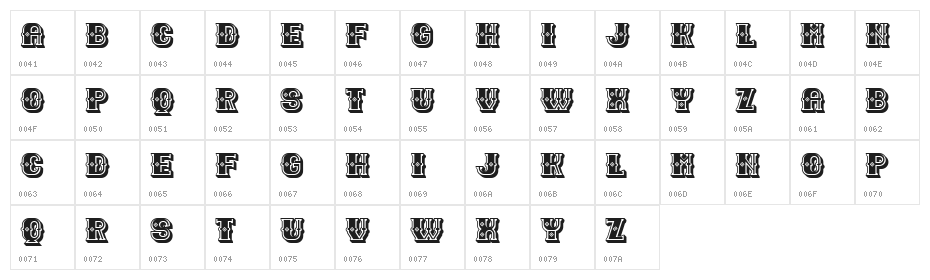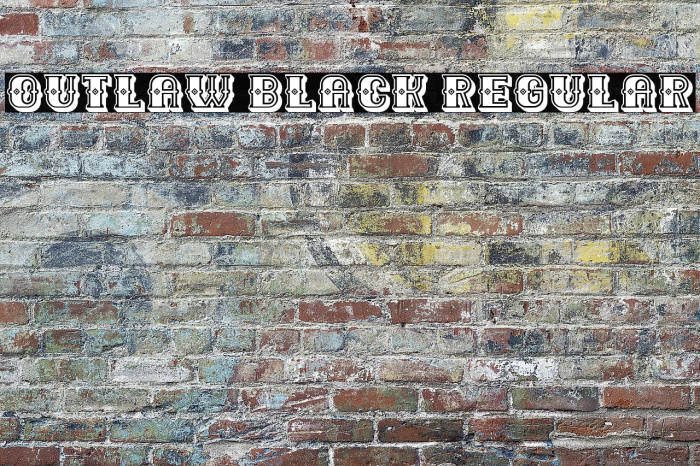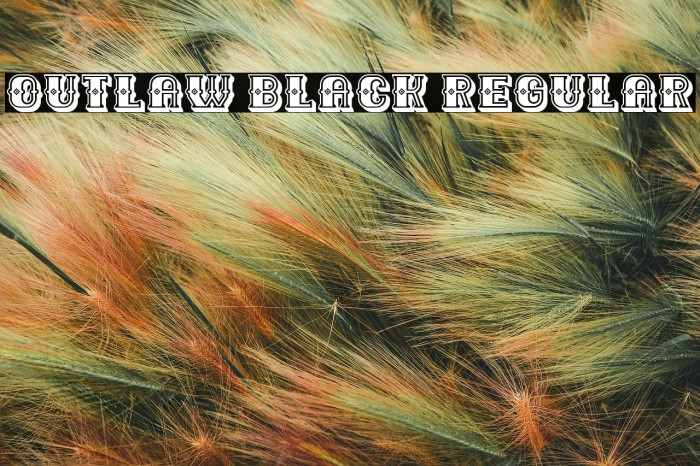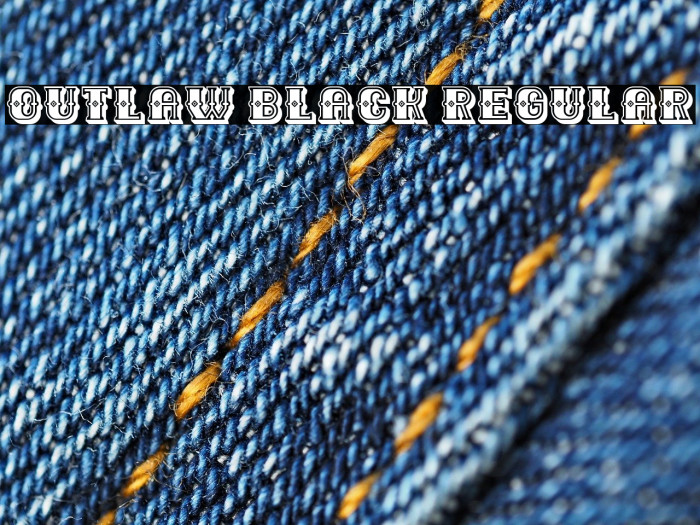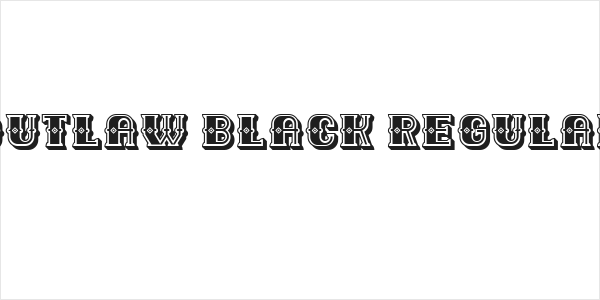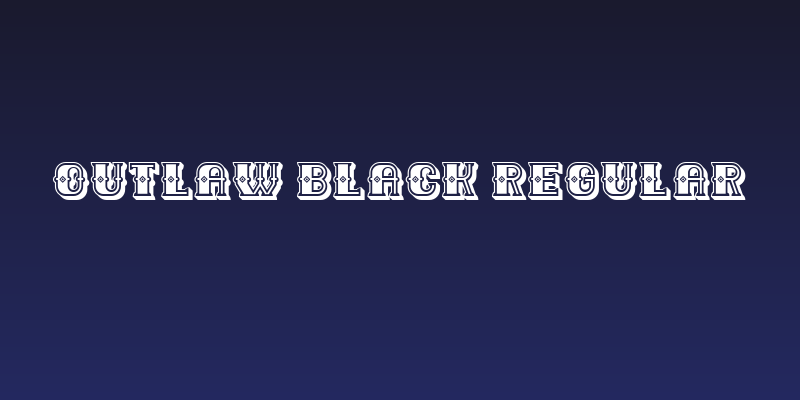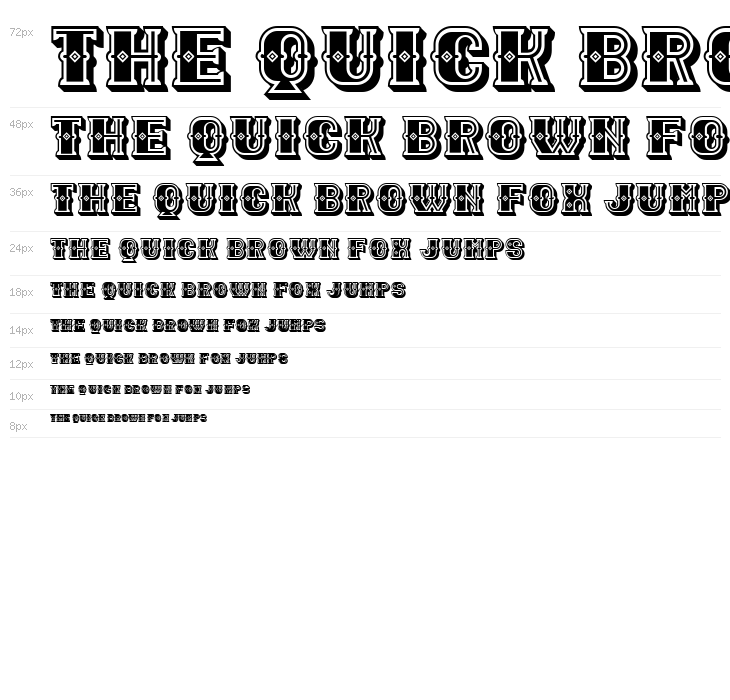
Outlaw Black Regular Font
Outlaw Black Regular Description
This font features a bold, decorative style with intricate detailing that evokes a sense of the Wild West. Each character is adorned with unique embellishments, including stars and geometric shapes, giving it a distinctive and eye-catching appearance. The thick strokes and high contrast between the filled and outlined areas create a strong visual impact, making it ideal for attention-grabbing designs. The font's ornate nature and historical inspiration make it suitable for projects that require a vintage or thematic touch.
Overall StyleVintage
Proposed ProjectsIdeal for posters, branding, and themed events that require a vintage or Western aesthetic.